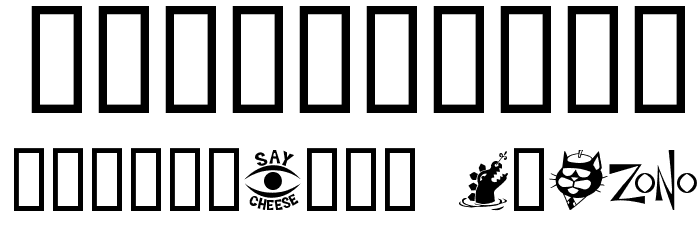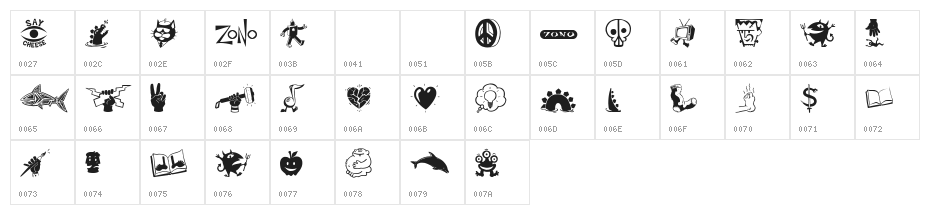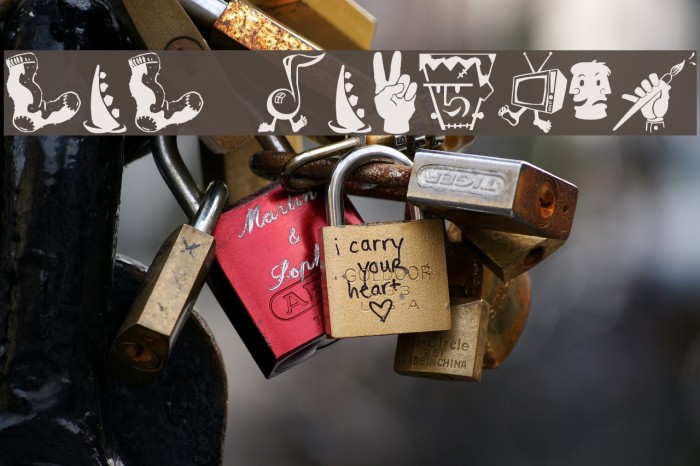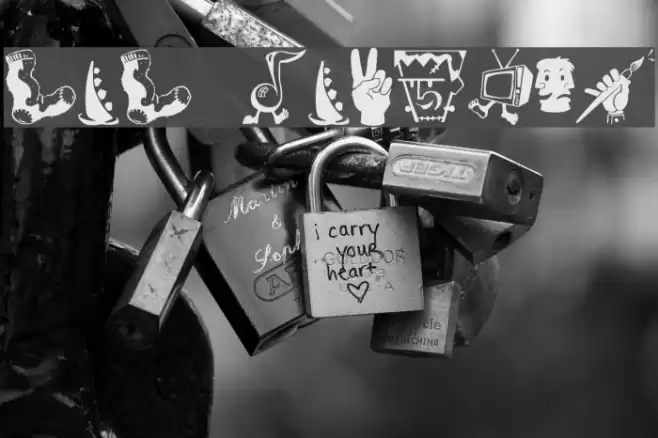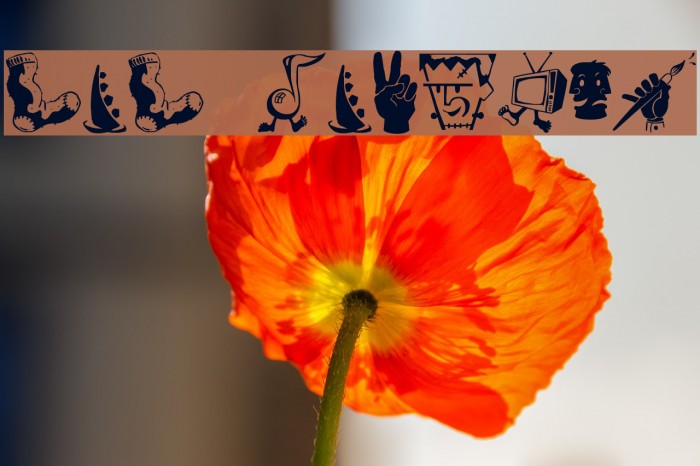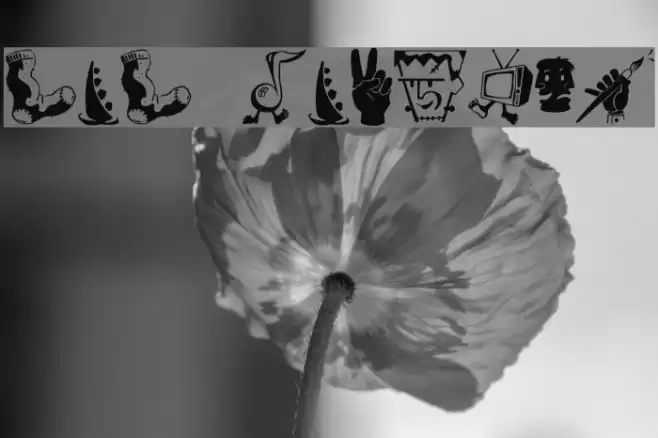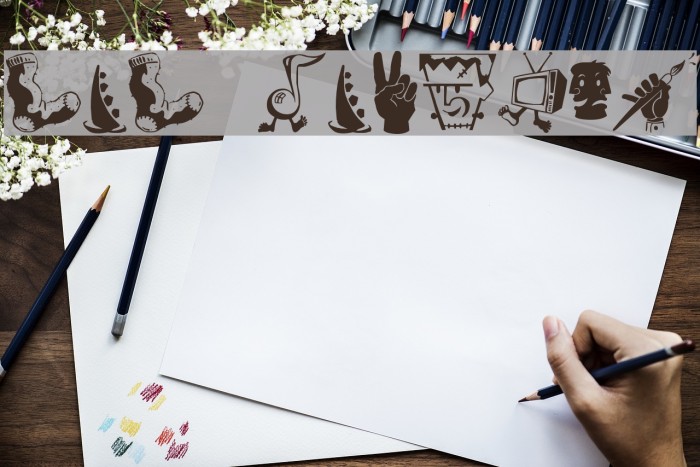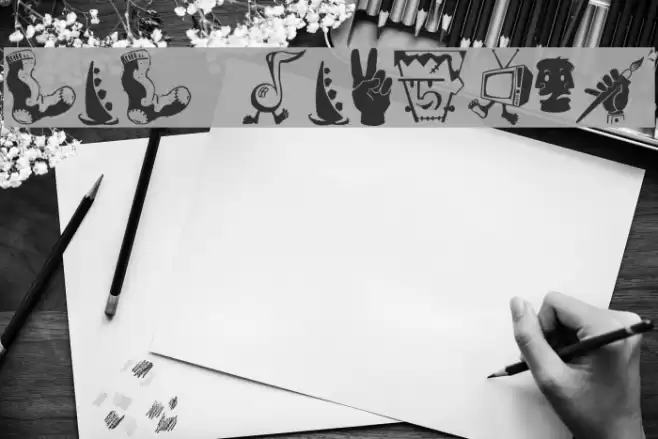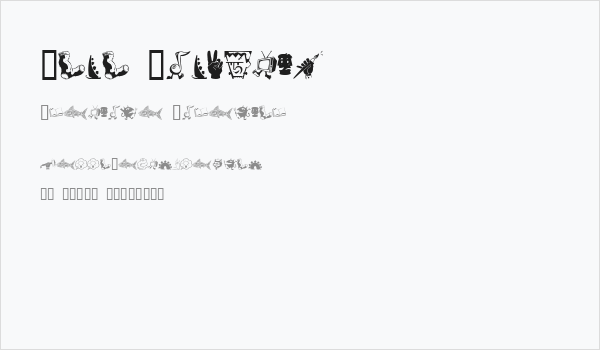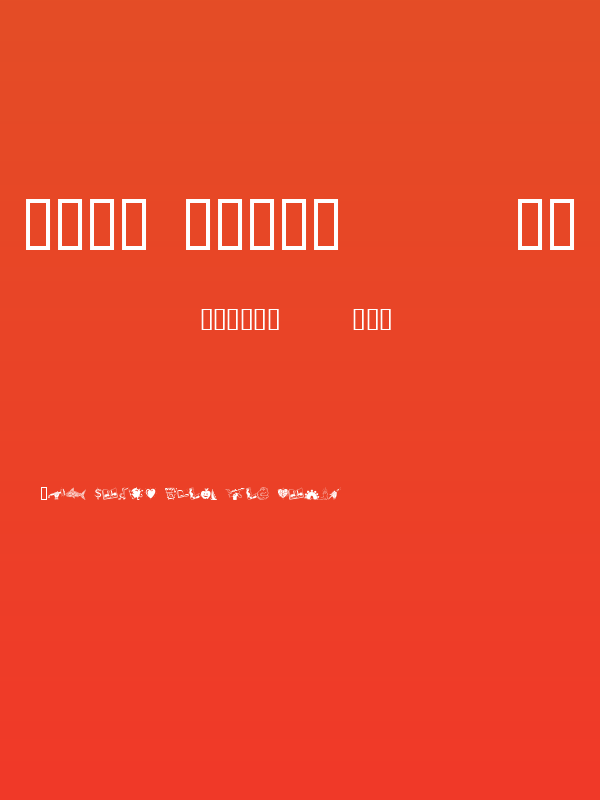
Zono Dingbats Font
Zono Dingbats Description
This collection features a playful and eclectic assortment of dingbats, each with a unique and whimsical design. The characters include a variety of quirky illustrations such as a television with eyes, a fish, a hand gesture, a hammer, hearts, and various other imaginative symbols. These dingbats are bold and cartoonish, with thick outlines and a high contrast between the black and white elements. The designs are highly detailed, making them suitable for decorative purposes where a fun and informal style is desired. The overall aesthetic is lively and creative, perfect for adding a touch of humor and personality to projects.